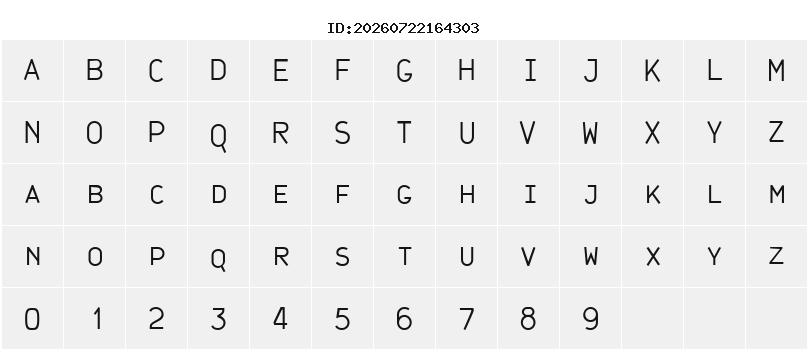
About JetJaneMonoCaps.ttf
JetJaneMonoCaps.ttf is a modern, elegant sans-serif font designed for ultimate readability and visual harmony. Perfect for branding, headlines, web design, and print materials.